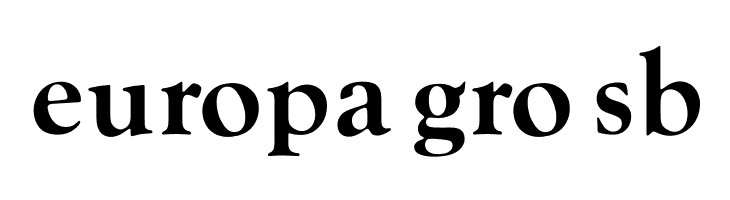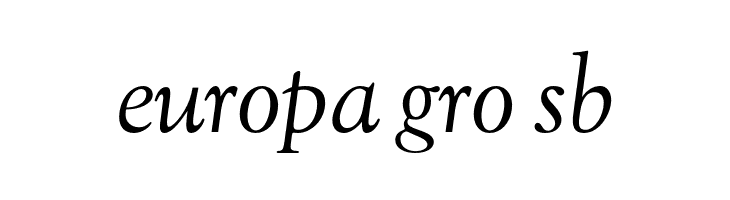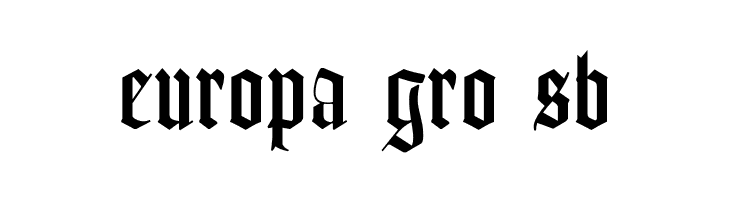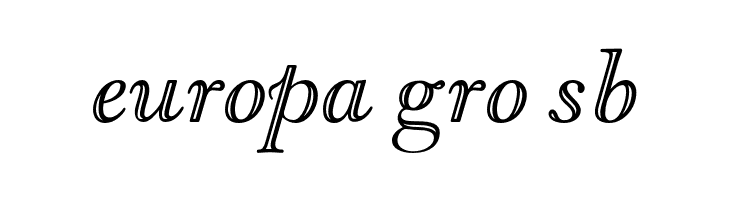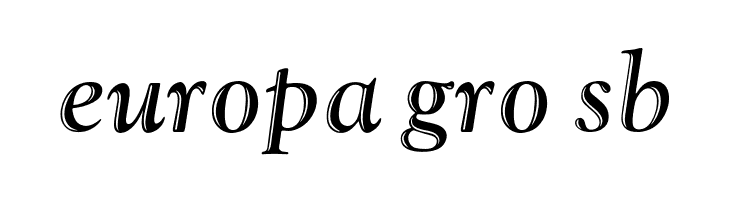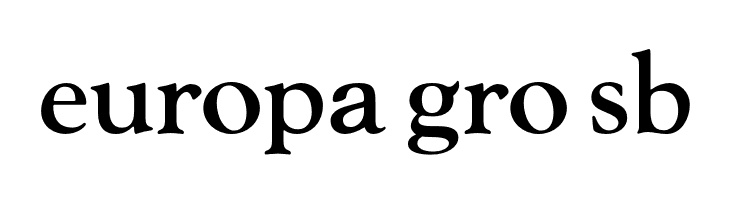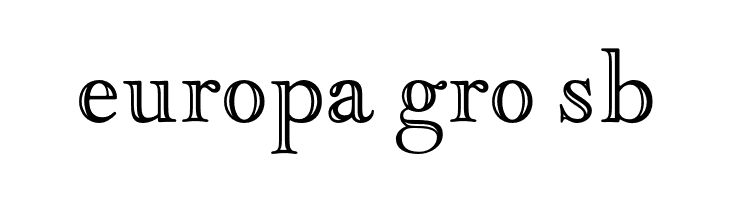
A bold, classic serif font with elegant curves and strong strokes.
A classic cursive font with elegant, flowing lines and sophisticated style.
A classic blackletter font with ornate, angular letterforms and a medieval aesthetic.
A classic, elegant serif typeface with an italic slant and refined cursive style.
A classic serif font with a hand-tooled, italicized style, offering elegance and readability.
A classic serif font with elegant and refined letterforms.
A classic serif font with elegant curves and refined details.